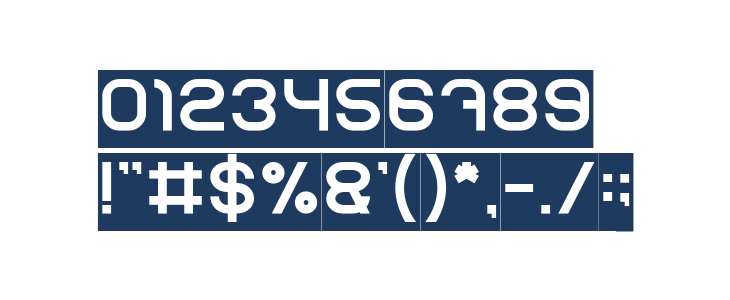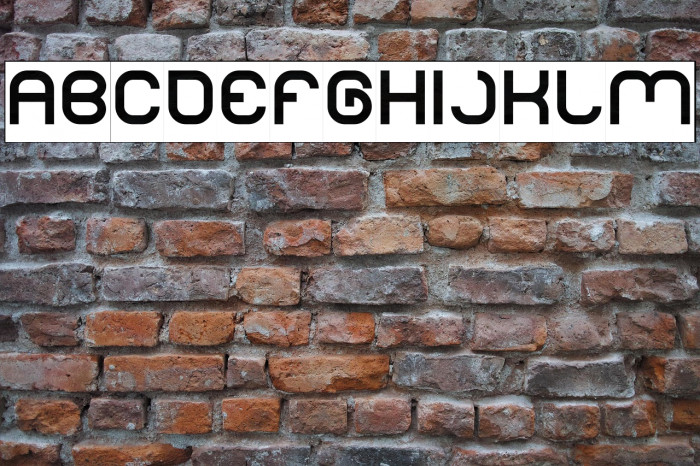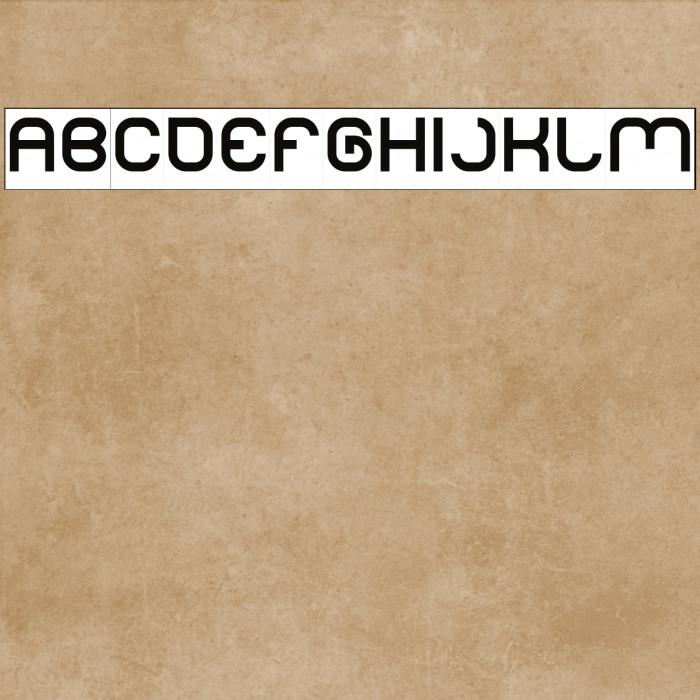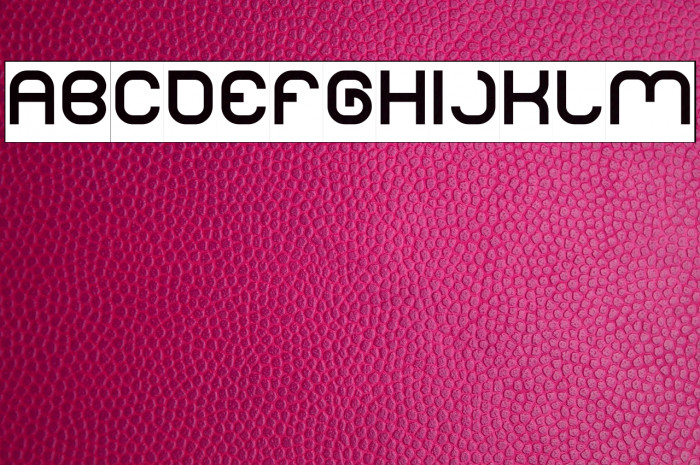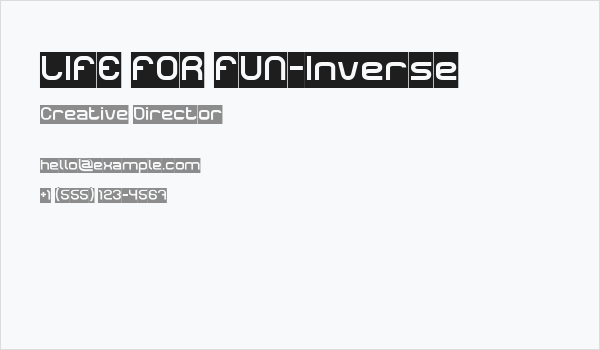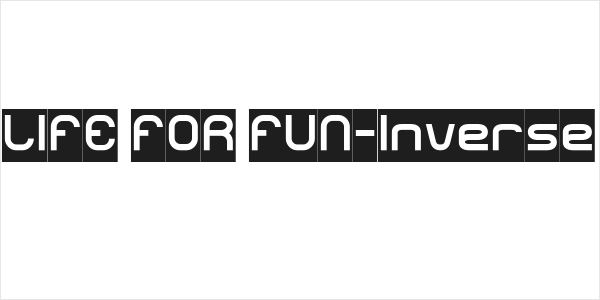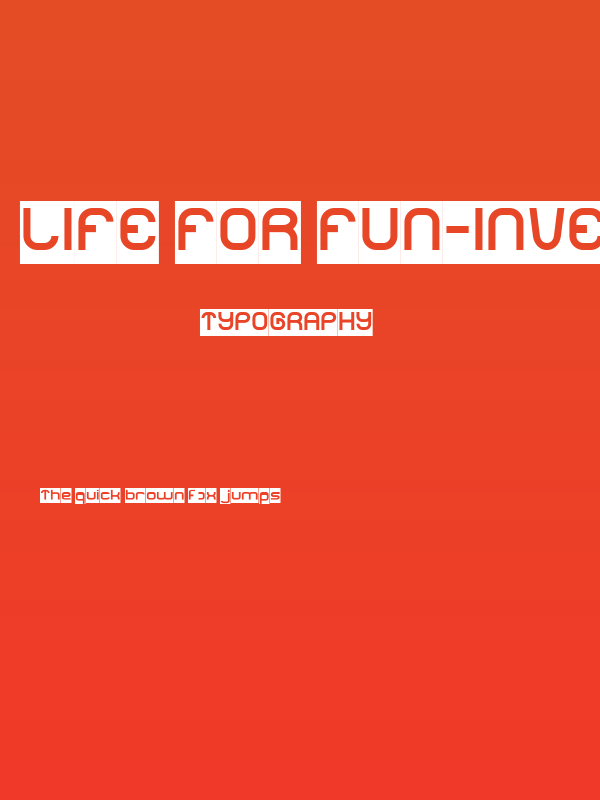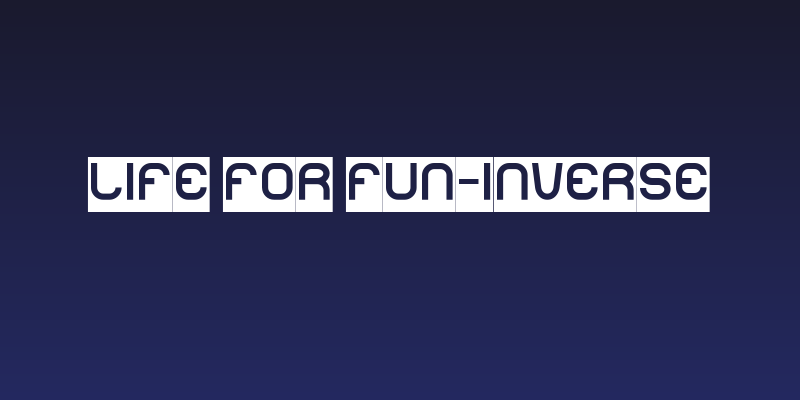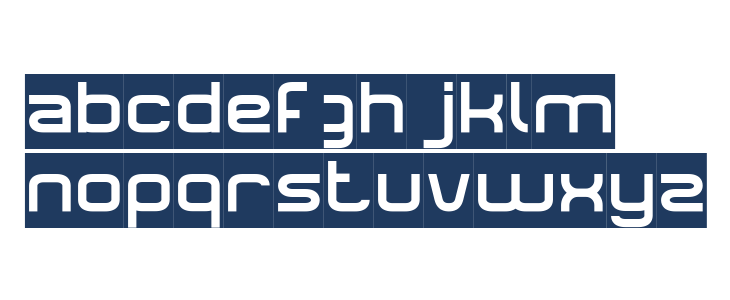
LIFE FOR FUN-Inverse Font
LIFE FOR FUN-Inverse Description
This font features a modern and futuristic design with a geometric and rounded style. The characters are bold and have a consistent stroke width, giving them a strong presence. The uppercase letters are uniform in height, while the lowercase letters maintain a similar structure with slight variations for readability. The numbers are clear and distinct, matching the overall aesthetic of the font. Special characters are well-integrated, maintaining the geometric theme. This font is ideal for projects that require a contemporary and sleek look.
| Use Case | Headlines, Logos, Digital Interfaces |
| Proposed Projects | Ideal for technology branding, modern advertising, futuristic posters, and digital interfaces. |